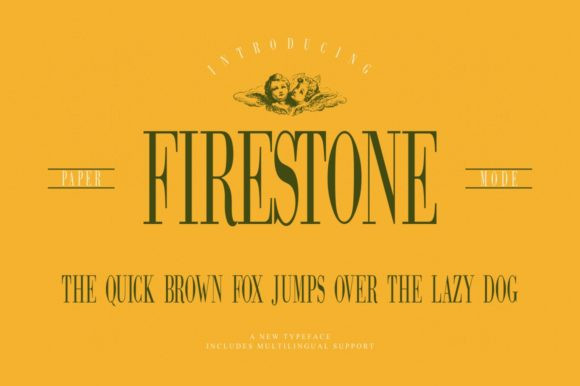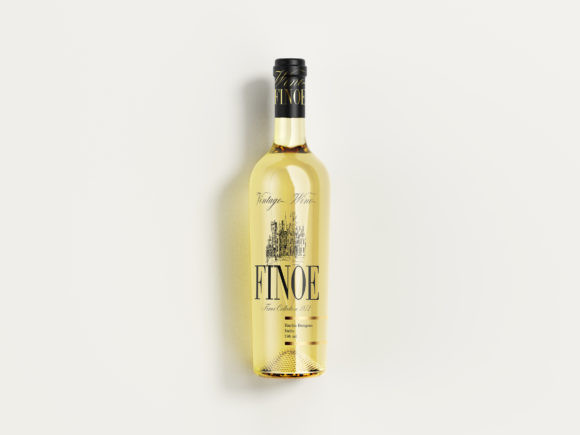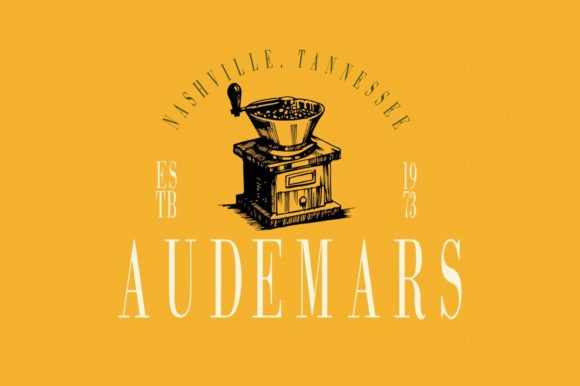
Firestone Font
Firestone is a minimal, yet elegant serif font. Suitable to a wide variety of designs due to its neat and simple style, Firestone has the potential to become your favorite go-to font, no matter the occasion!